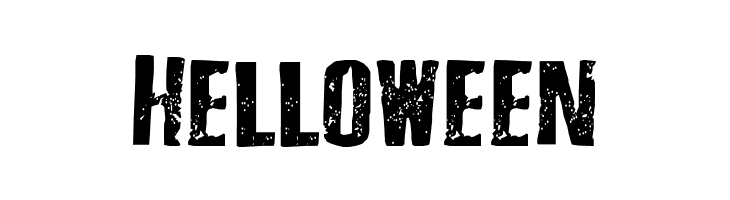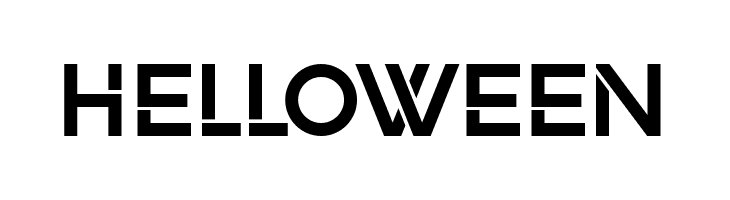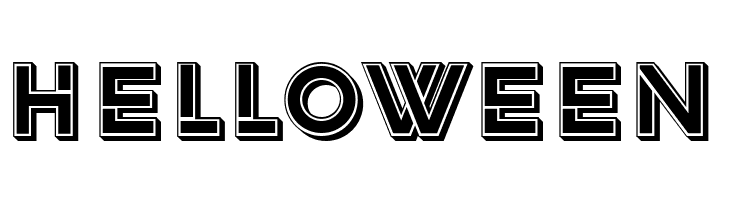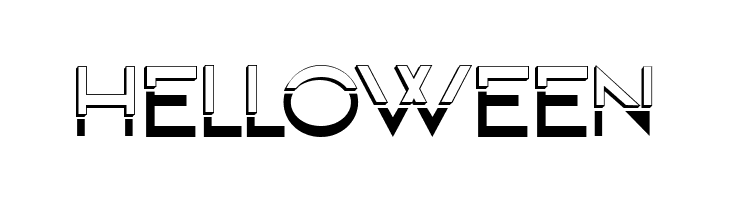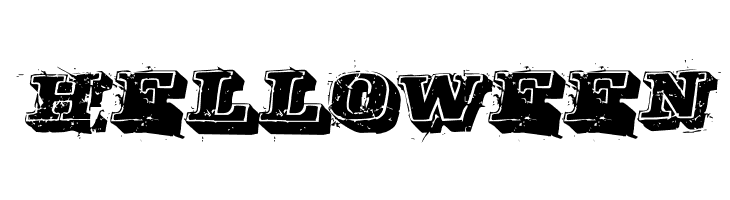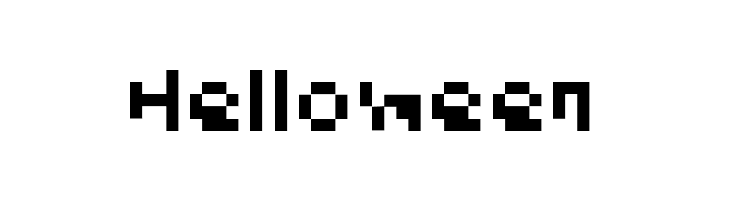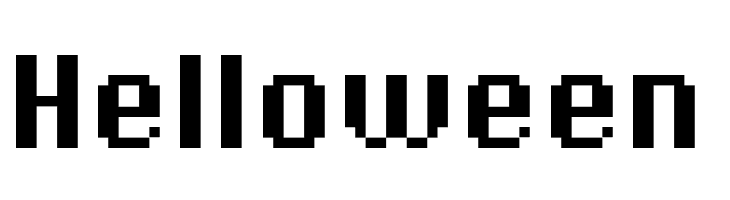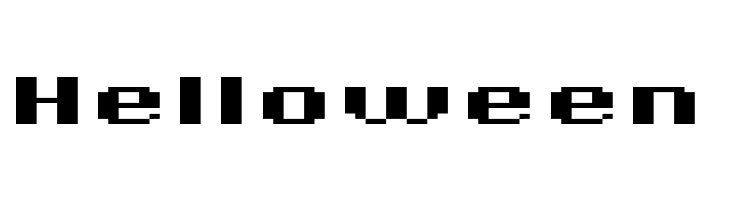
• DePixel-Bold
• DePixel-Boldreduced
• DePixel-Breit
A pixelated, retro-style font with a digital, geometric appearance.
• DePixel-BreitFett
• DePixel-BreitFettreduced
• DePixel-Breitreduced
A pixelated, blocky font with a retro digital aesthetic.
• DePixel-Illegible
A pixelated, retro-style font inspired by early digital typography.
• DePixel-Illegiblereduced
A pixelated, retro-style font with a blocky, digital appearance.
• DePixel-Klein
A pixelated, retro-style font ideal for digital and nostalgic designs.
• DePixel-Kleinreduced
A pixelated, retro-style font with a blocky, digital appearance.
• DePixel-Schmal
A pixelated, retro-style font with a uniform, blocky design.
• DePixel-Schmalreduced
A pixelated, monospaced font with a retro digital aesthetic.
• DEPLETED URANIUM Regular
A bold, geometric font with a futuristic and industrial design.
• Deportees
A jagged, angular font with sharp strokes and dynamic energy.
• Depot
• Depot Filled Regular
A bold, geometric font with a three-dimensional, layered effect.
• Depot Regular
A bold, geometric font with a modern, industrial aesthetic.
• Depraved
A bold, distressed font with a grunge texture and 3D shadow effect.
• Depres
A chaotic, vine-like decorative font with jagged, intricate strokes.
• Depressionist 3 Revisited
A bold, distressed font with a rugged, vintage appearance.
• Depressionist Three
A bold, distressed font with a grunge aesthetic, perfect for edgy designs.
• Depressionist v1.0
A distressed, grungy font with bold, textured characters.
• Depressionist v2.0